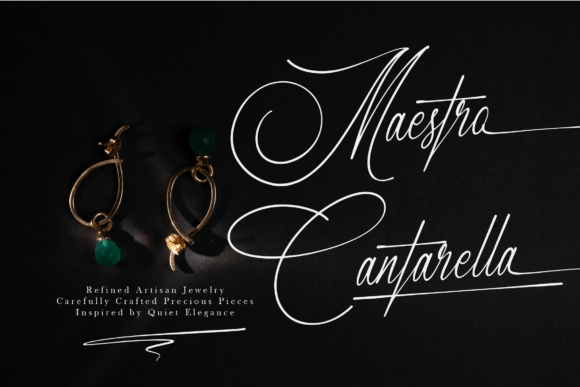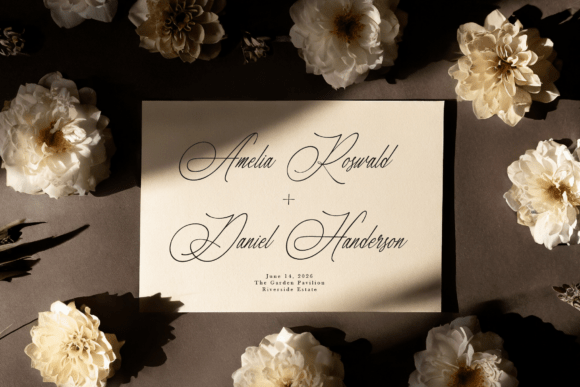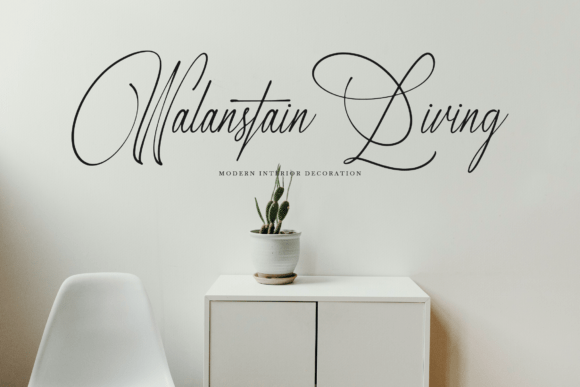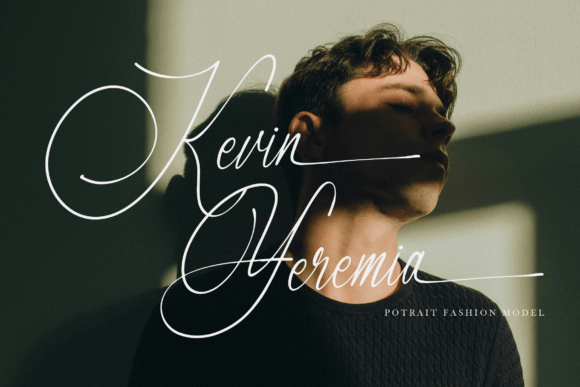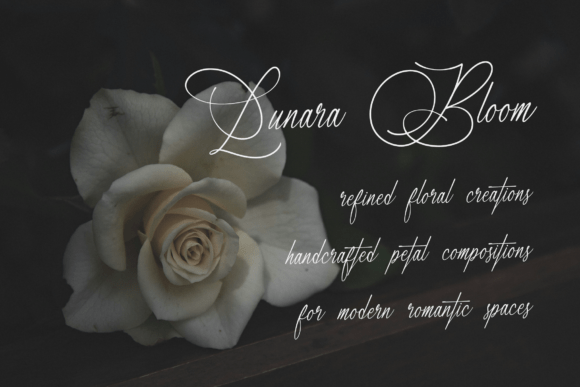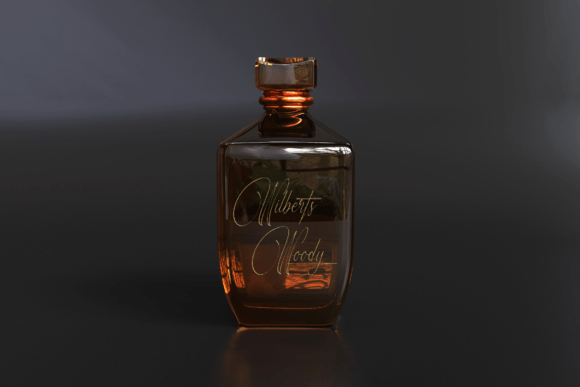
Introduction to Marseliyon Font
Have you ever sat down with a blank sheet of paper, pen in hand, and let your creativity flow? That’s exactly what the designers at [font creator’s name] aimed to capture with the Marseliyon Font – a high-quality, elegant signature script that embodies the art of artisanal penmanship. As you watch the fluid strokes come to life, you’ll feel the same sense of freedom and expression that inspired this beautiful font.
As a valuable design resource, Marseliyon Font offers a unique blend of drama and sophistication, making it perfect for creative projects that demand a touch of high-end elegance. Whether you’re working on a fashion brand, photography project, or simply need a signature-style logo, Marseliyon Font is an excellent choice. And the best part? It’s available for free download, giving you the freedom to experiment and refine your design without any limitations.
With its transparent background and airy loops, Marseliyon Font is a versatile design tool that can elevate any project to new heights. From fashion designer branding to high-end mastheads, this font is sure to leave a lasting impression. So why not give Marseliyon Font a try and see how it can enhance your next creative project?
Key Features of Marseliyon Font
- Marseliyon Font is a high-quality, free download design resource ideal for creative projects.
- It features a unique, modern design with a transparent background, making it perfect for layered designs.
- Marseliyon Font comes in a single font size, making it easy to use in various design applications.
- This font is a great addition to any designer’s toolkit, offering a clean and sophisticated look for any creative project.
- Marseliyon Font is a versatile design resource that can be used for a wide range of applications, from branding and logos to digital graphics and more.
Honest Review: Marseliyon Font
I recently stumbled upon the Marseliyon Font and I must say, it’s a fantastic addition to my design resource library. As a designer, I’m always on the lookout for high-quality fonts that can elevate my creative projects to the next level.
What works well with the Marseliyon Font is its versatility. It’s a great choice for a variety of projects, from logos to digital interfaces, and even print materials. The font’s modern aesthetic and transparent background make it easy to integrate into any design.
- ✨ Modern and sleek design aesthetic
- ✨ Versatile and suitable for various design projects
One potential limitation of the Marseliyon Font is its limited character set. While it’s perfect for most projects, it may not be suitable for those that require a wider range of characters.
Overall, I’m really impressed with the Marseliyon Font and I’d highly recommend it to fellow designers. It’s a great addition to any design resource library and can help take your creative projects to the next level.
Tips for Getting the Most Out of the Marseliyon Font
Use the Marseliyon Font in combination with other design elements to create a cohesive and visually appealing design. Experiment with different font sizes and colors to add depth and interest to your design. With its high quality design and transparent background, the Marseliyon Font is a great design resource for any project.
The Marseliyon Font is a versatile design resource that can be used for a variety of creative projects, including social media graphics, posters, infographics, presentations, and documents. Its high quality design and transparent background make it a great addition to any design arsenal.
Is the Marseliyon Font suitable for high-quality, large-scale design projects?
Yes, the Marseliyon Font is designed to be scalable and legible at various sizes, making it an excellent choice for high-quality, large-scale design projects. Its high-quality design and clear typography ensure that your creative project will stand out with professionalism and style.